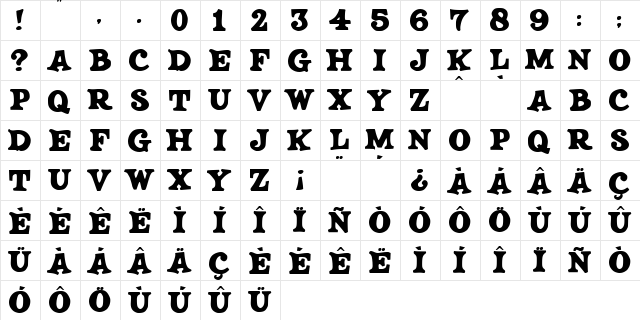
JMH SALOON Regular
Design Context for JMH SALOON Typeface
JMH SALOON taps into classic Western woodtype traditions — bold, characterful, and impossible to ignore.
Perfect for barbecue restaurants, country music branding, vintage poster design, and rustic packaging.
Font Pairing: Combine JMH SALOON with a simple slab or neutral sans — period-accurate companions reinforce the vintage feel without competing for attention.
Pro Tip: Pair JMH SALOON with aged textures or distressed backgrounds to amplify its vintage personality.